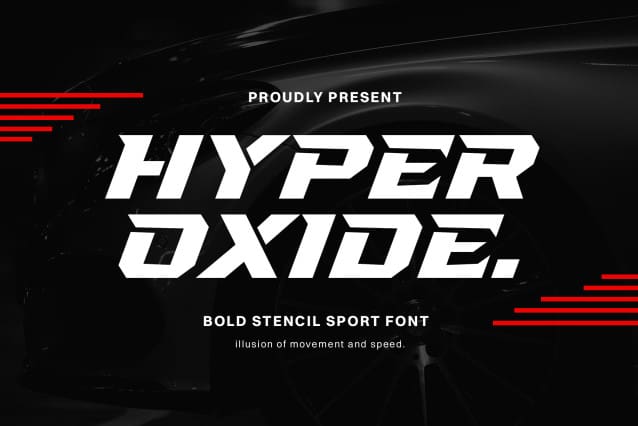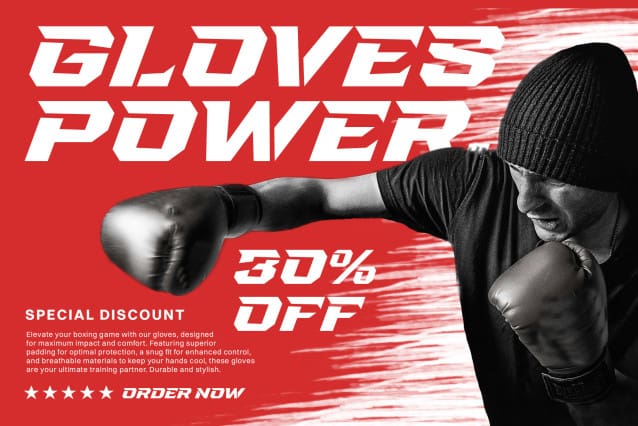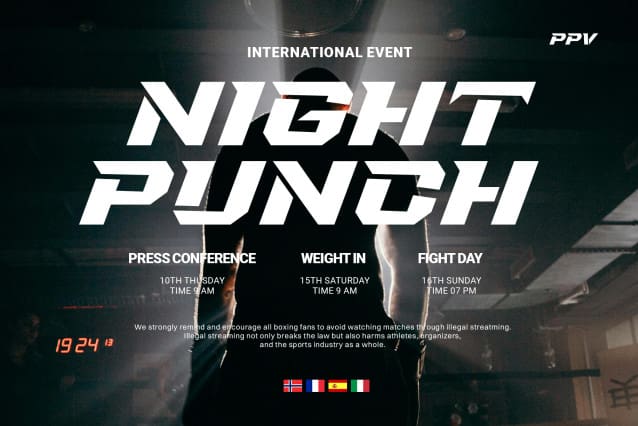
Hyper Oxide Sport Font
Hyper Oxide Sport Font – Bold Stencil Sport Font, Unleash the power of bold design with Hyper Oxide, a cutting-edge typeface meticulously crafted to embody the spirit of strength and modernity. This bold stencil font is designed to transform your creative projects, infusing them with a dynamic, sporty aesthetic.
At its core, Hyper Oxide captures the essence of industrial and athletic design, reflecting precision and robustness. Its bold lines and unique stencil cutouts make it an ideal choice for various graphic applications, ensuring versatility across multiple platforms and mediums.